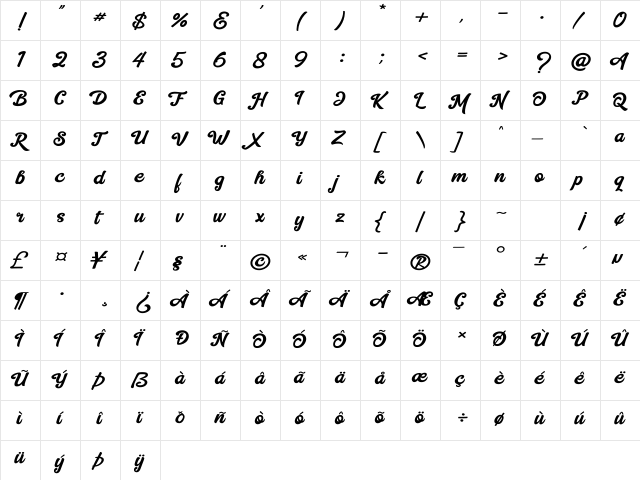
Mentega Regular
| Designer | Lettersiro 2018 |
Design Context for Mentega Typeface
Mentega is a composed and adaptable typeface that performs quietly and consistently across a wide range of design contexts.